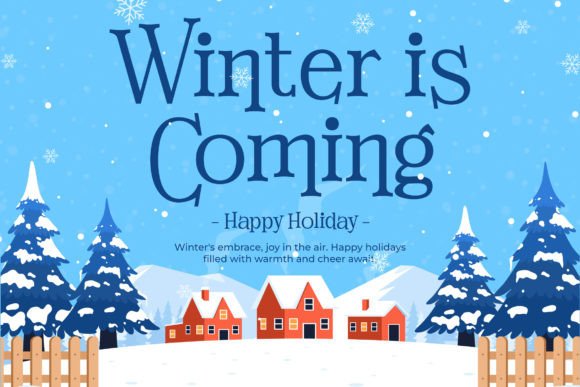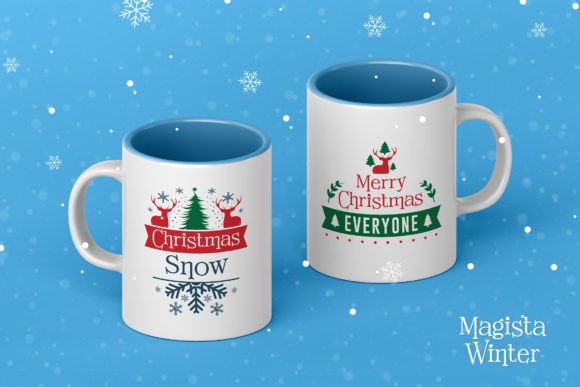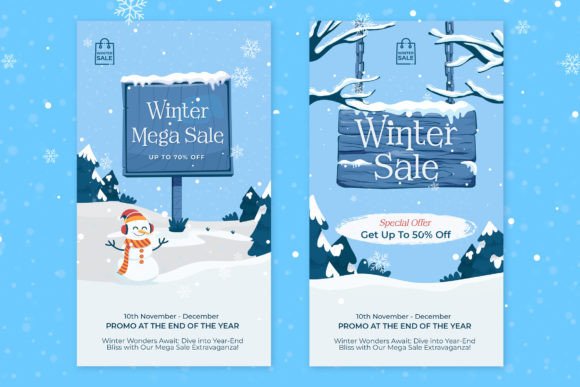
Introduction to Magista Winter Font
Proudly Present **Magista Winter – A Fun Holiday Typeface** **Magista Winter** Is a Fun Holiday Typeface With a Concept of the End of the Year Events Such as Christmas, New Year, and Winter.
It Comes in 2 (Two) Styles (Regular and slant) and Is Created With Some Alternate and Ligatures Perfect for Your Design Projects Like Advertising, Branding, Posters, Sale Signs, Product Designs, Special Events, Book Covers, Cards, Merchandise, Labels, Product Packaging, and More.
Key Features of Magista Winter Font
Why Choose Magista Winter Font?
Magista Winter Font offers exceptional quality and versatility, making it a valuable addition to your design toolkit. Whether you’re creating for personal projects or commercial use, Magista Winter Font delivers professional results.